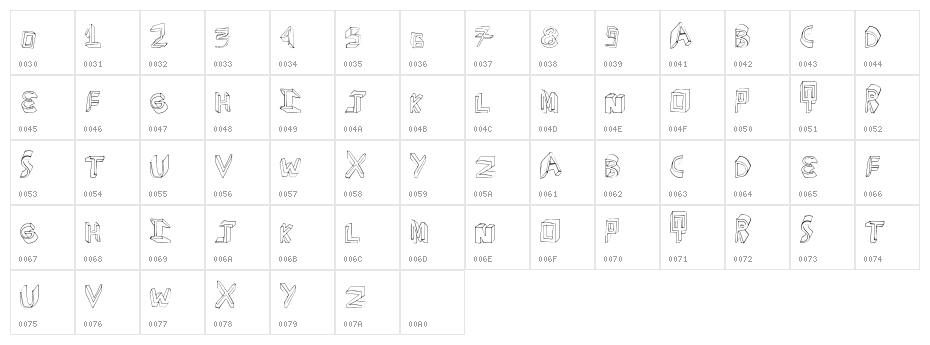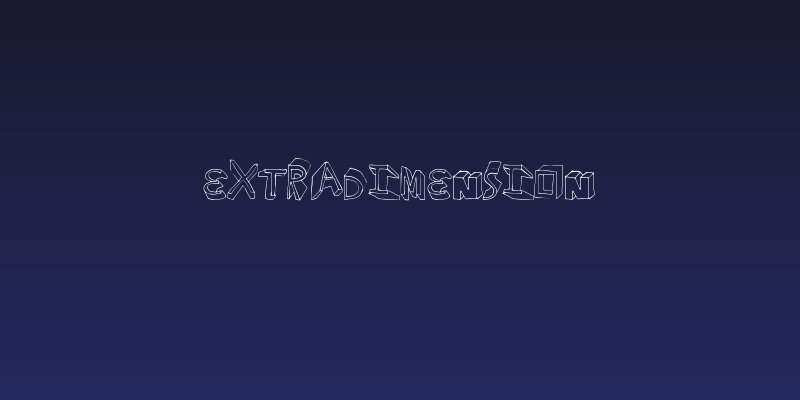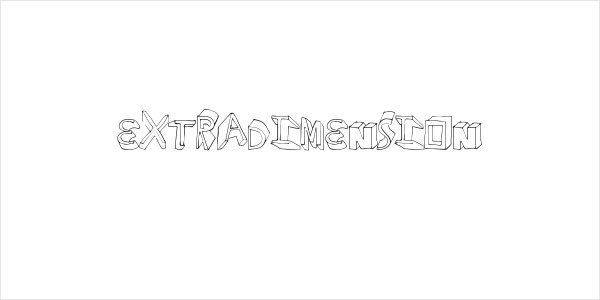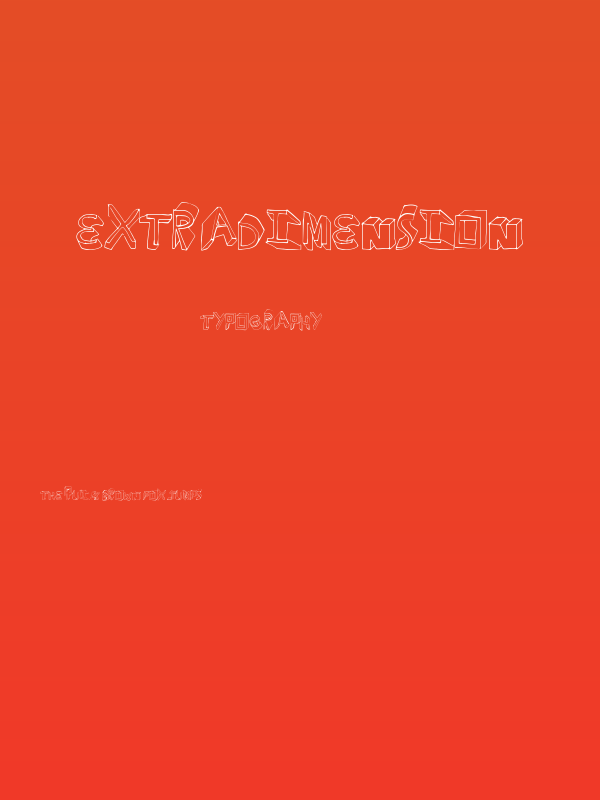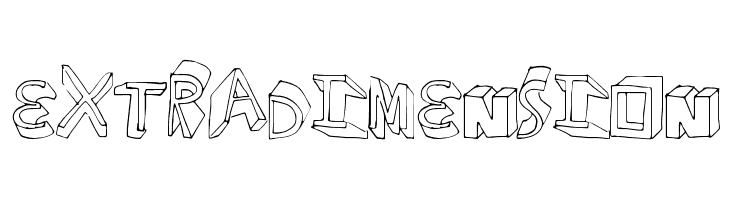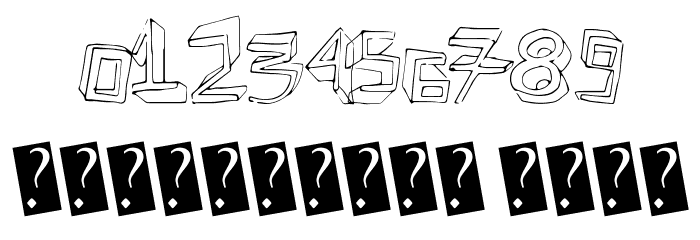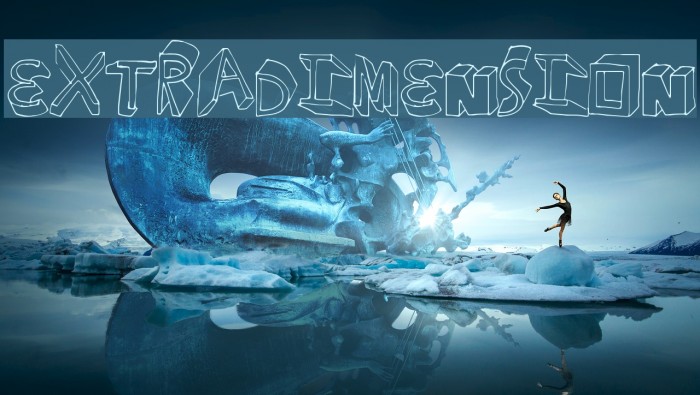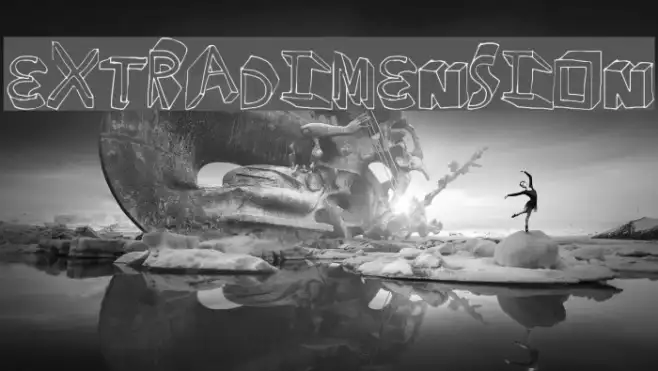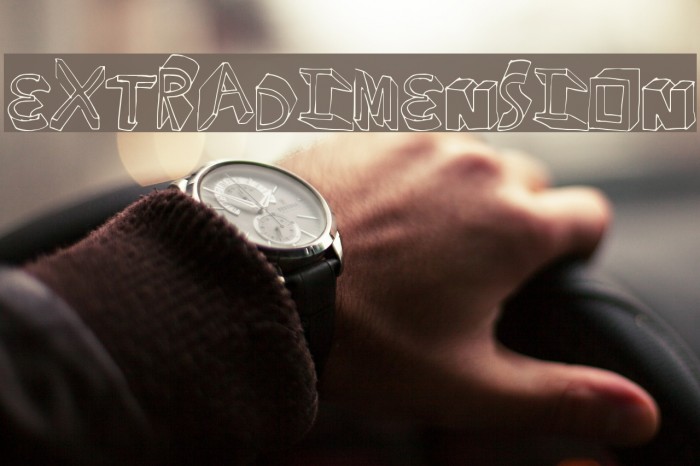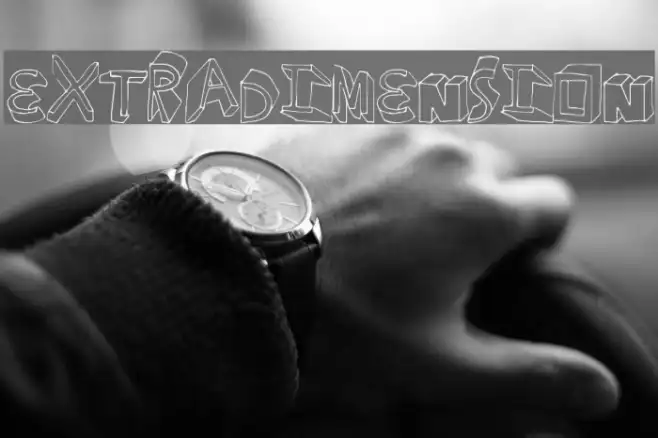
ExtraDimension Font
ExtraDimension Description
This font features a bold, three-dimensional design that gives each character a unique, extruded appearance. The letters are outlined with a shadow effect, creating a sense of depth and dimension. The style is playful and eye-catching, making it ideal for projects that require a standout visual element. The uppercase and lowercase letters maintain a consistent style, with angular lines and geometric shapes. Numbers and special characters are also included, following the same dimensional style. This font is perfect for creative projects that aim to capture attention and convey a sense of fun and innovation.
| Proposed Projects | Ideal for posters, logos, video game graphics, and any project needing a standout, playful font. |